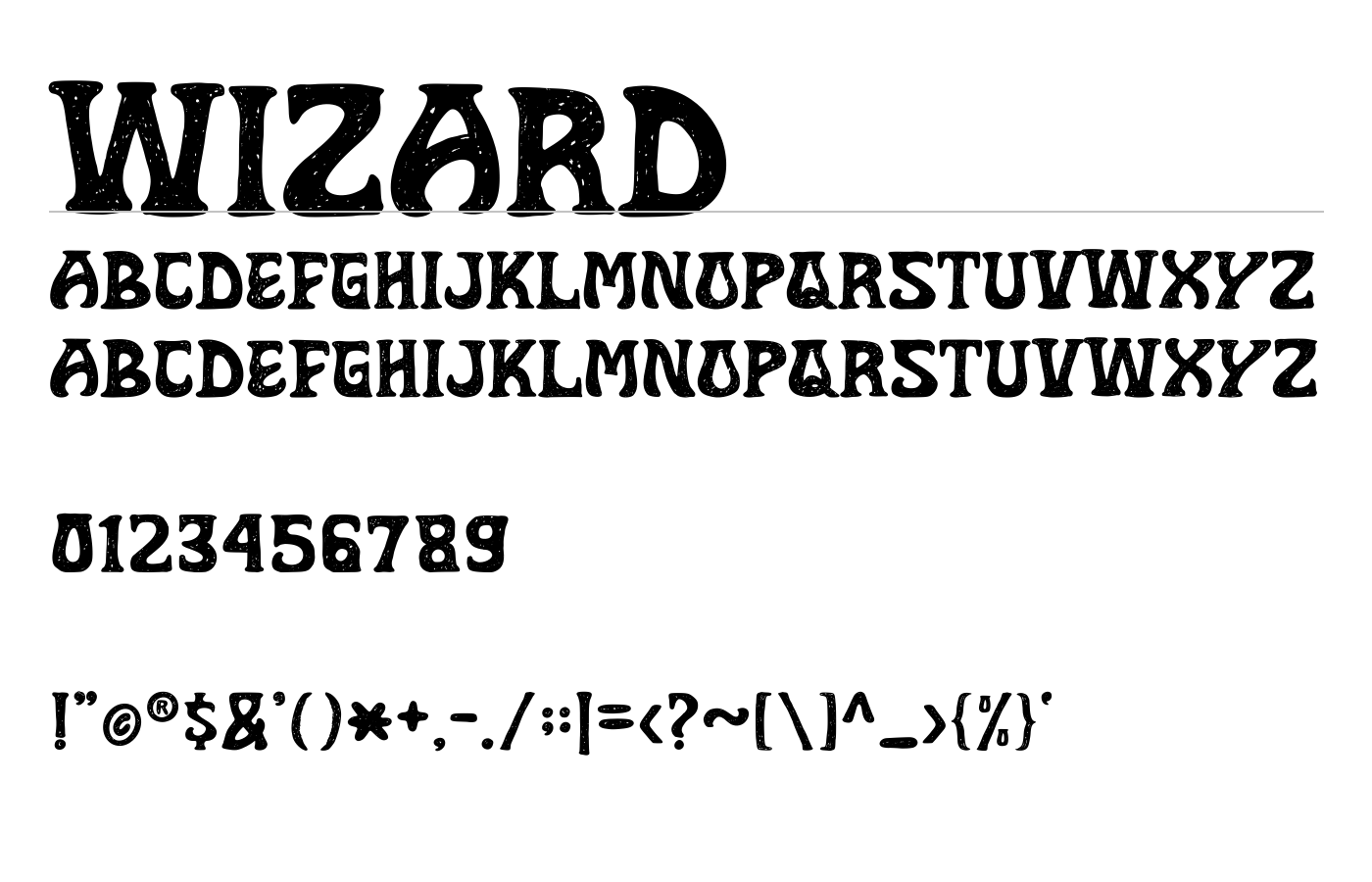
Wizard Font is a bold, playful serif typeface with rounded, slightly irregular shapes and a textured, hand-crafted feel that evokes a magical or whimsical atmosphere. Its distinctive letterforms and strong presence make it ideal for headlines, logos, and creative projects that seek a fun, enchanting, or vintage-inspired style. This font works well in branding or posters where a unique, eye-catching look is desired.
Wizard Font